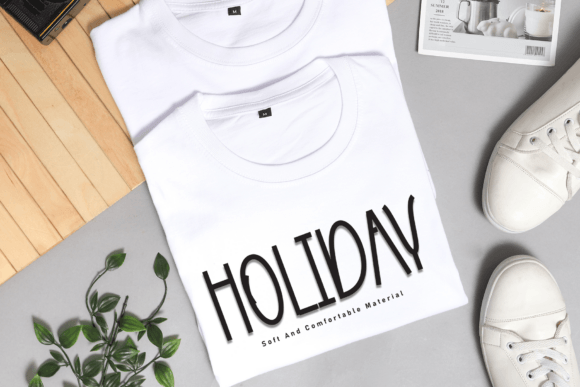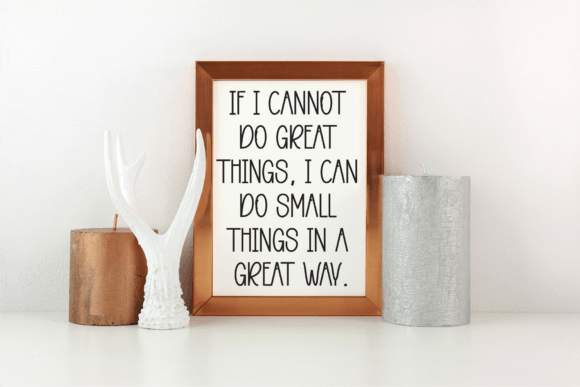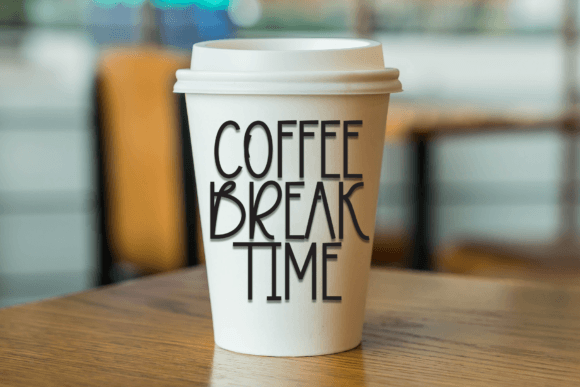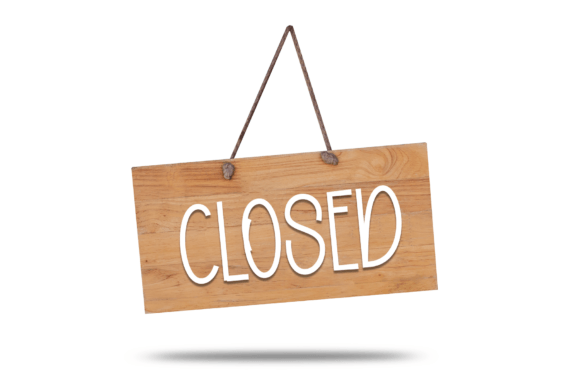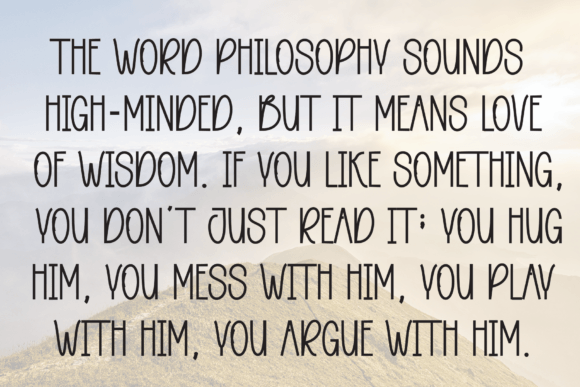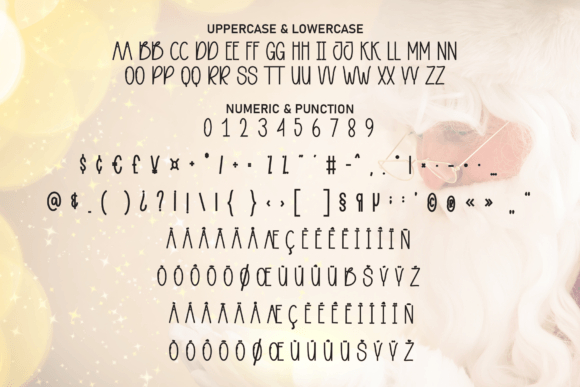
Introduction to Santa Shine Font
Have you ever been working on a creative project, pouring your heart and soul into it, only to realize that something is missing? The text just doesn’t seem to pop, and you’re left with a design that’s anything but captivating? That’s where the Santa Shine Font comes in – a charming and jovial handwritten display font that’s sure to add a sprinkle of joy and intimacy to your designs.
With its delightful and buoyant aesthetics, this font magically transforms mundane text into captivating prose. Whether you’re crafting bespoke wedding invitations, personalized cards, or vibrant designs that require a playful touch, the Santa Shine Font is an indispensable tool in your design arsenal. Its delicate balance of sweet and friendly undertones makes it a valuable resource for designers looking to craft a delightful and engaging rapport with their audiences.
Key Features of Santa Shine Font
- Unique and festive design, perfect for creative projects and holiday-themed designs
Honest Review: Santa Shine Font
I recently stumbled upon the Santa Shine Font, a free download that’s been making waves in the design community. As a designer, I was excited to dive in and see what all the fuss is about.
- What works well: ✨ The font is a high-quality, creative resource that’s perfect for any project that needs a touch of festive flair. It’s versatile and can be used for a variety of design projects, from digital graphics to print materials.
While the Santa Shine Font is a great addition to any design library, there are a few limitations to be aware of: ⚠️ The font is only available in a limited range of weights and styles, which may limit its use in certain projects.
Overall, I’m impressed with the Santa Shine Font. It’s a high-quality, creative resource that’s perfect for designers looking to add a touch of festivity to their projects. While it may not be perfect, it’s a great free download that’s definitely worth checking out.
The Santa Shine Font is suitable for various creative projects, such as holiday cards, invitations, and social media graphics. Its transparent background makes it easy to overlay on images or other design elements, while its high-quality design ensures that your projects stand out.